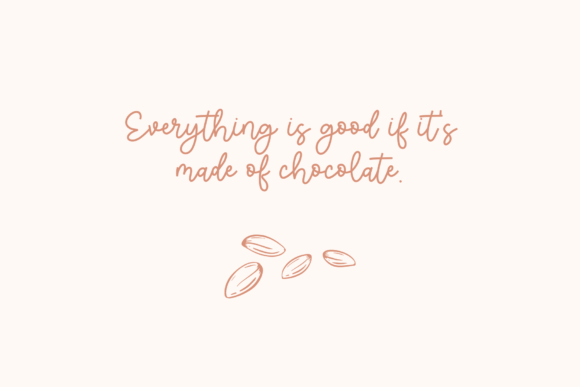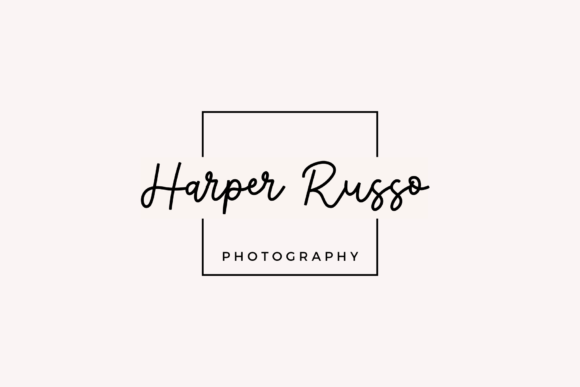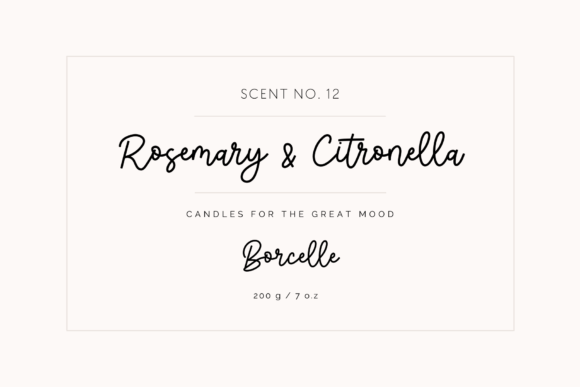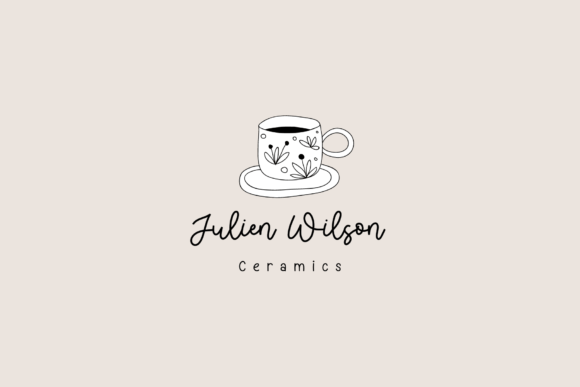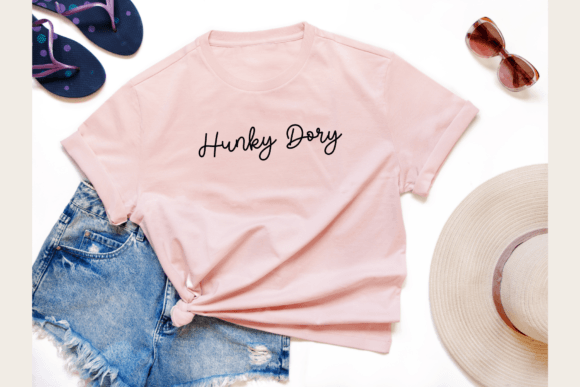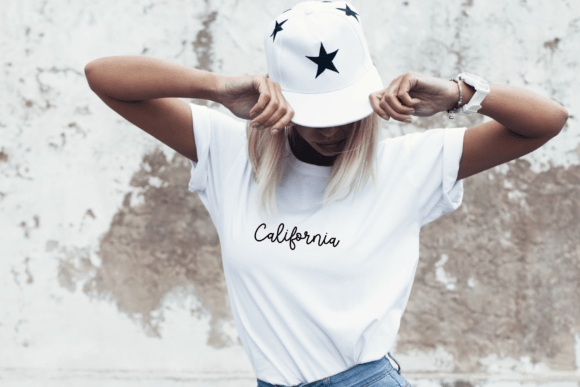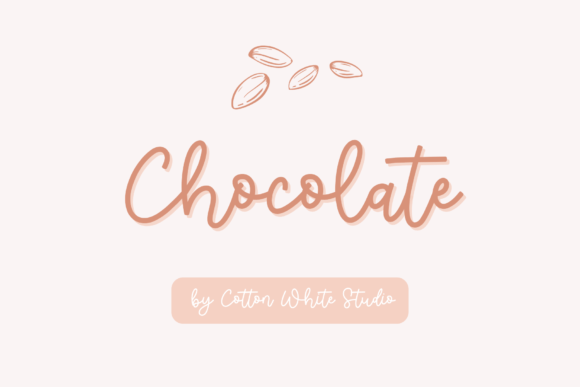
Introducing Chocolate Font: Elevate Your Designs with a Hand-Crafted Touch
Are you tired of using generic, overused fonts in your designs? Do you want to add a personal touch that sets your work apart? Look no further than Chocolate Font, a beautifully scripted font that brings a hand-crafted elegance to your projects. In this article, we’ll explore the features and benefits of Chocolate Font, and how it can elevate your designs, whether you’re a designer, crafter, or DIY enthusiast.
A Hand-Drawn Elegance
Chocolate Font is a hand-drawn elegant font that exudes sophistication and charm. Each letter has been carefully crafted to create a unique and authentic look that is sure to capture attention. The font’s scripted style is perfect for adding a touch of personality to your designs, making it ideal for branding, invitations, blogs, and planners.
Chocolate Font is a versatile font that can be used in a variety of design projects. Whether you’re a professional designer or a crafter, this font is perfect for:
- Branding: Create a unique and memorable brand identity with Chocolate Font. Use it for logos, business cards, and packaging to add a touch of elegance and sophistication.
- Invitations: Make your invitations stand out with Chocolate Font. Perfect for weddings, birthday parties, and other special occasions.
- Blogs: Add a personal touch to your blog with Chocolate Font. Use it for headings, titles, and other design elements to create a unique and engaging look.
- Planners: Create a beautiful and functional planner with Chocolate Font. Use it for headings, titles, and other design elements to add a touch of elegance and sophistication.
Why Choose Chocolate Font?
So why choose Chocolate Font over other fonts? Here are just a few reasons:
- Unique and Authentic: Chocolate Font offers a unique and authentic look that sets it apart from other fonts.
- Elegant and Sophisticated: The font’s scripted style adds an elegant and sophisticated touch to your designs.
- Versatile: Chocolate Font can be used in a variety of design projects, from branding to invitations to blogs and planners.
In conclusion, Chocolate Font is a beautifully scripted font that adds a hand-crafted elegance to your designs. With its unique and authentic look, elegant and sophisticated style, and versatility, it’s perfect for designers, crafters, and DIY enthusiasts. Whether you’re looking to create a brand identity, invitation, blog post, or planner, Chocolate Font is the perfect choice. So why wait? Download Chocolate Font today and start adding a personal touch to your projects!